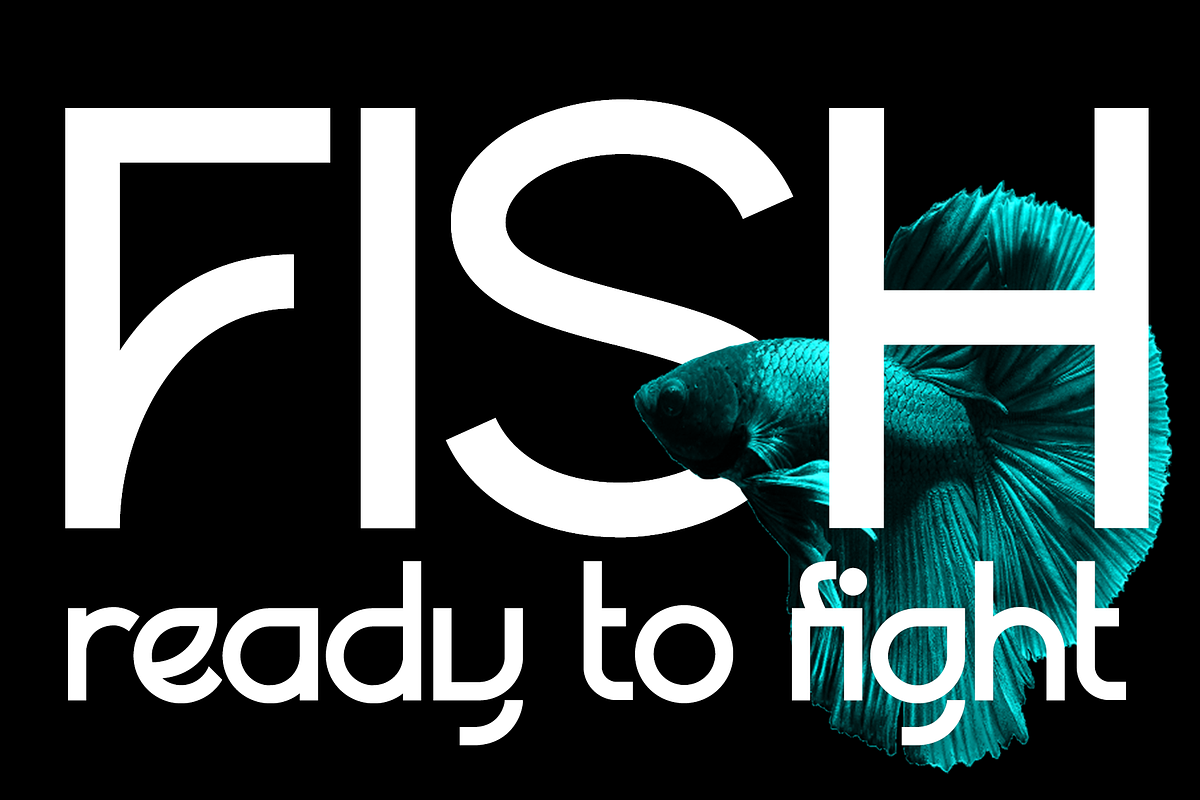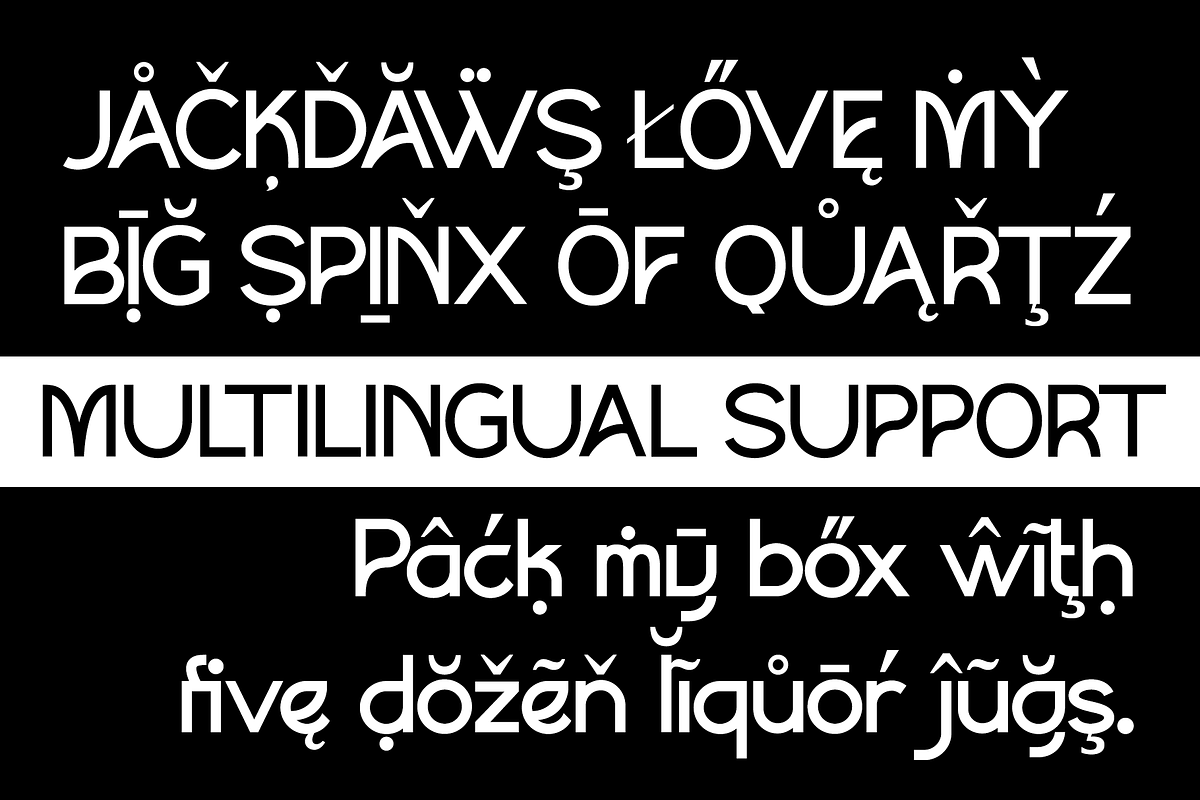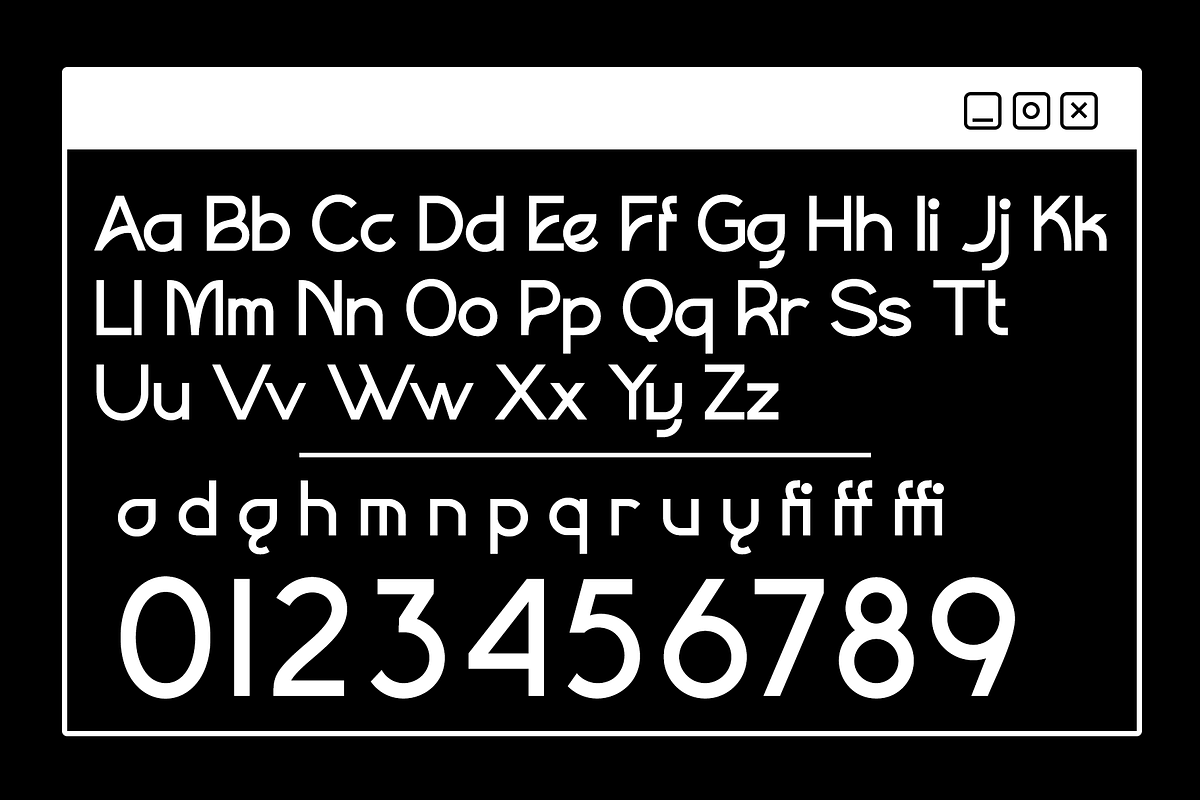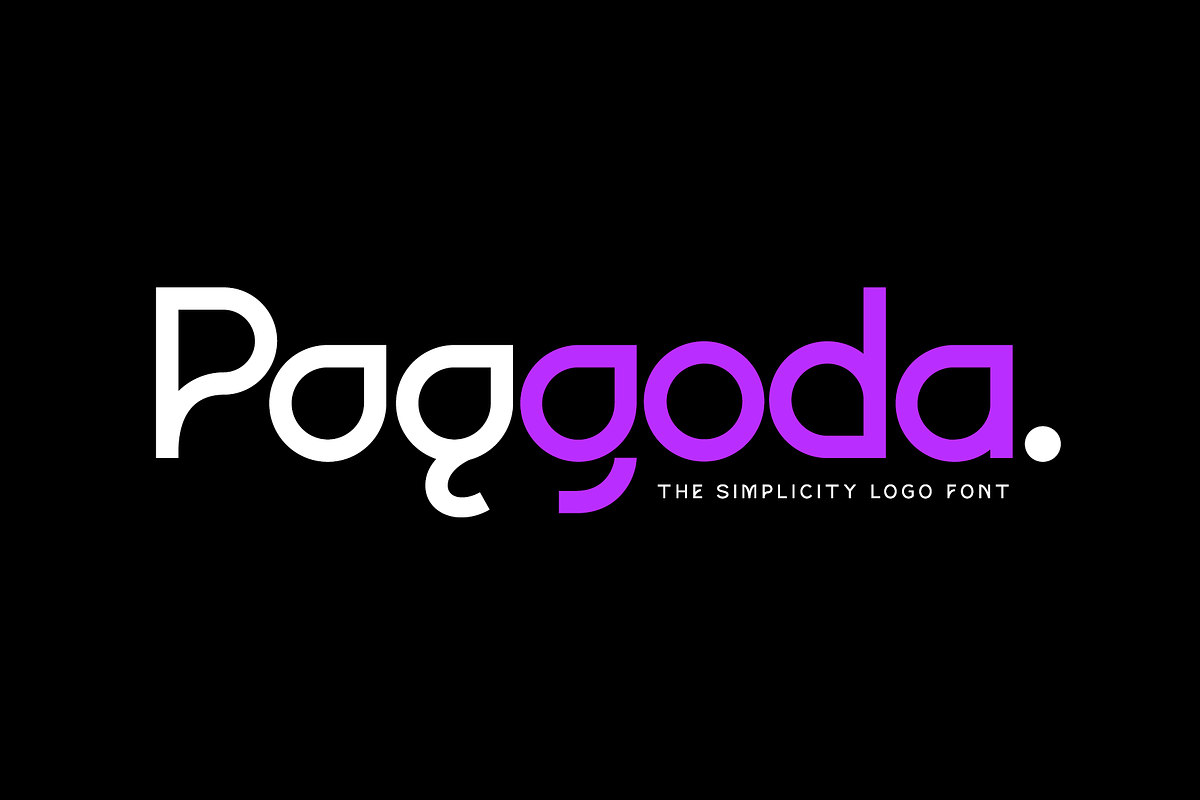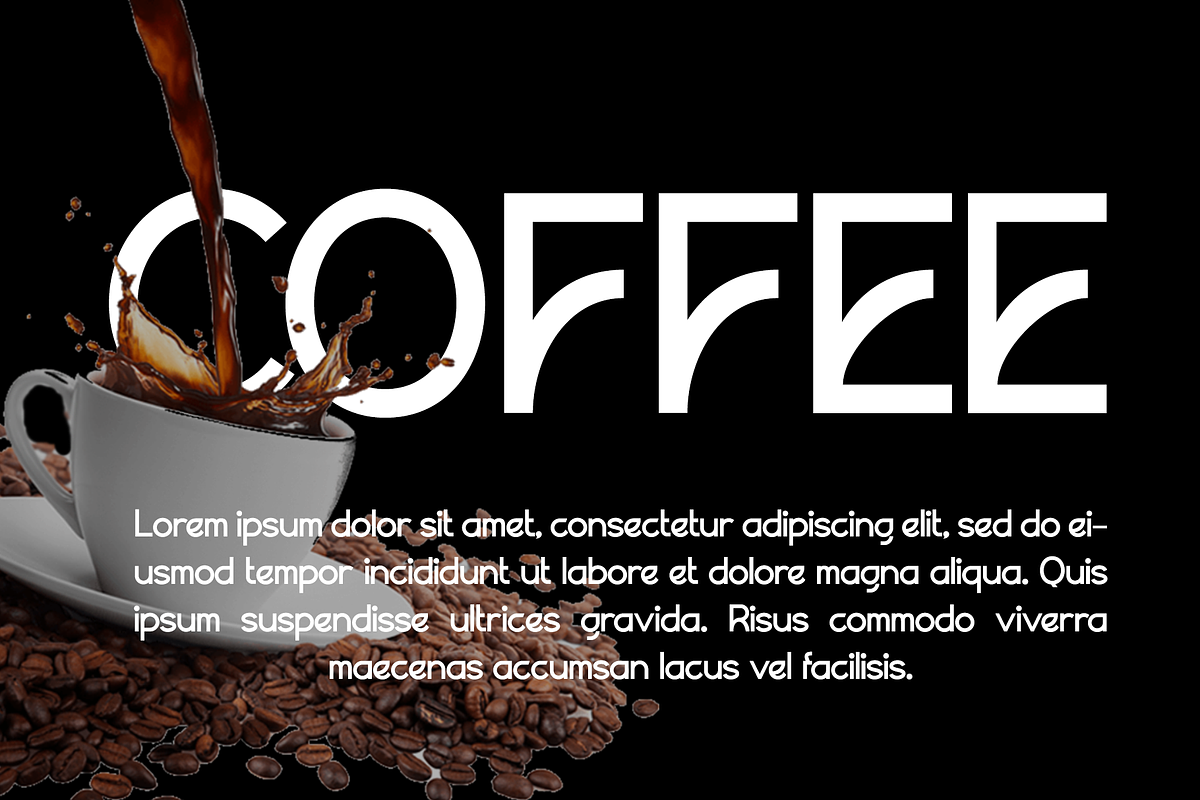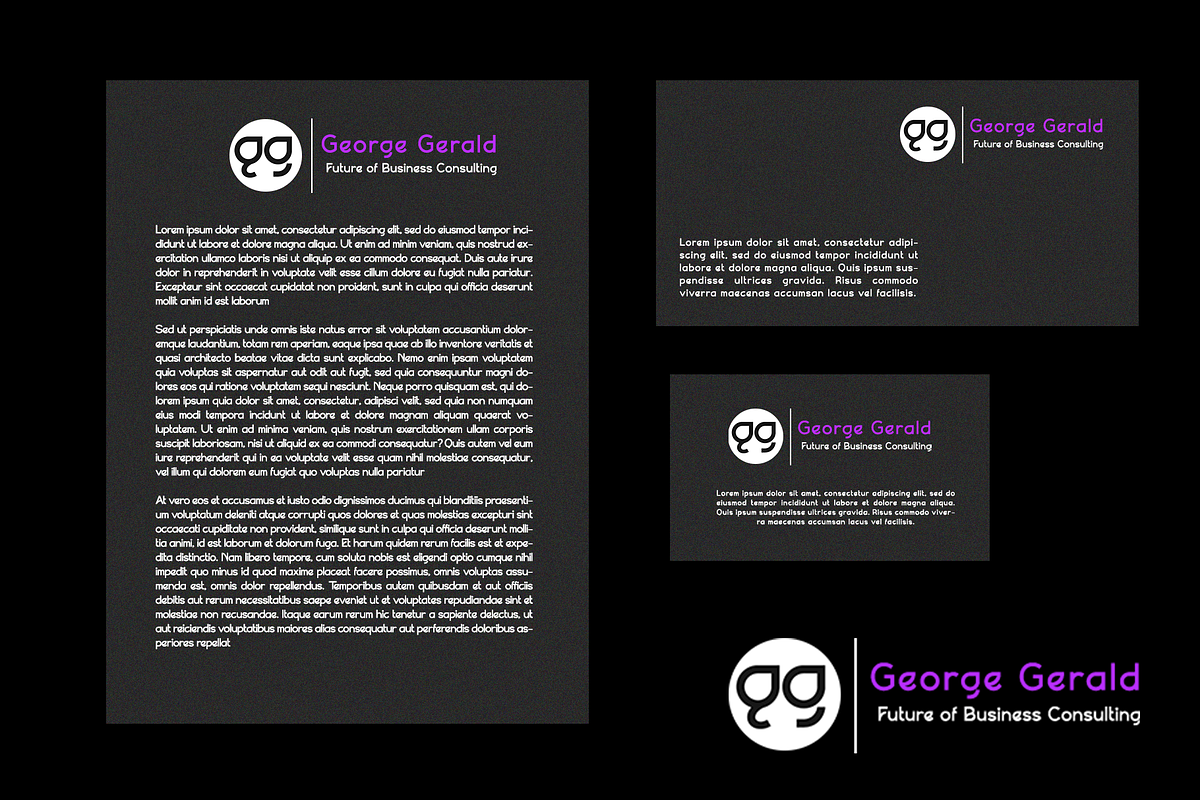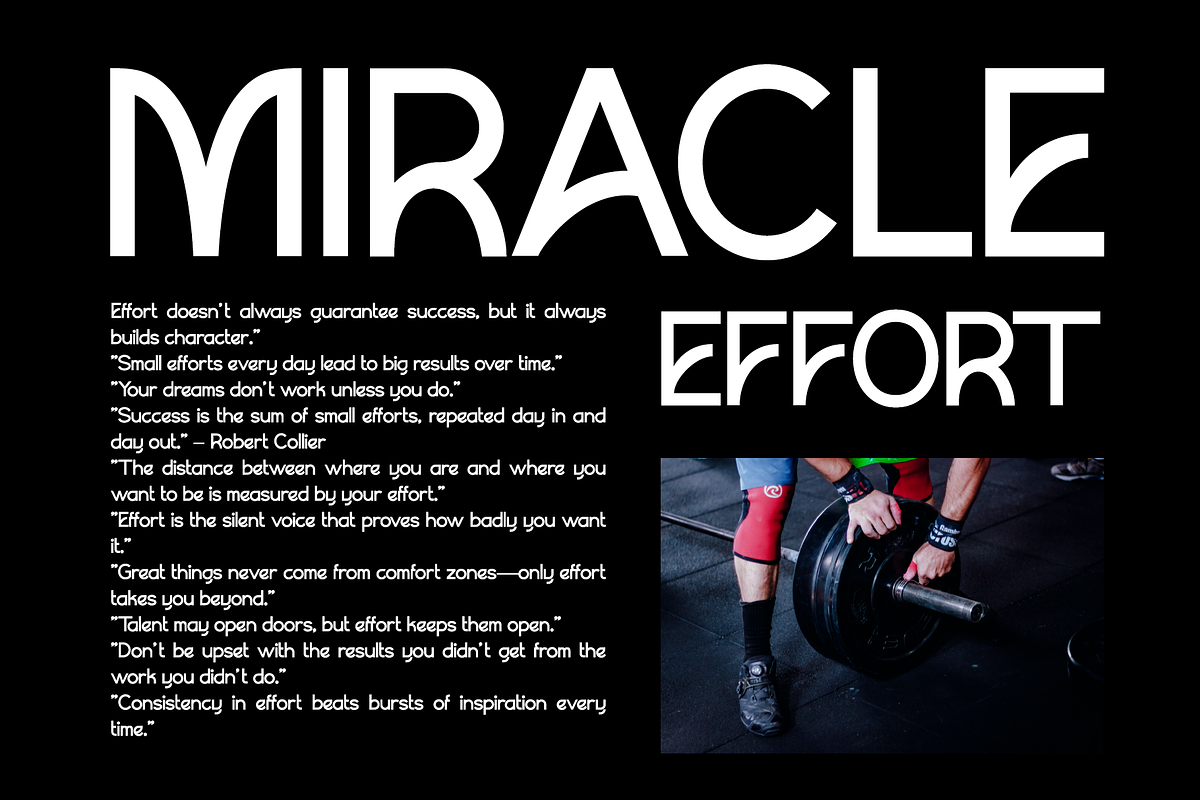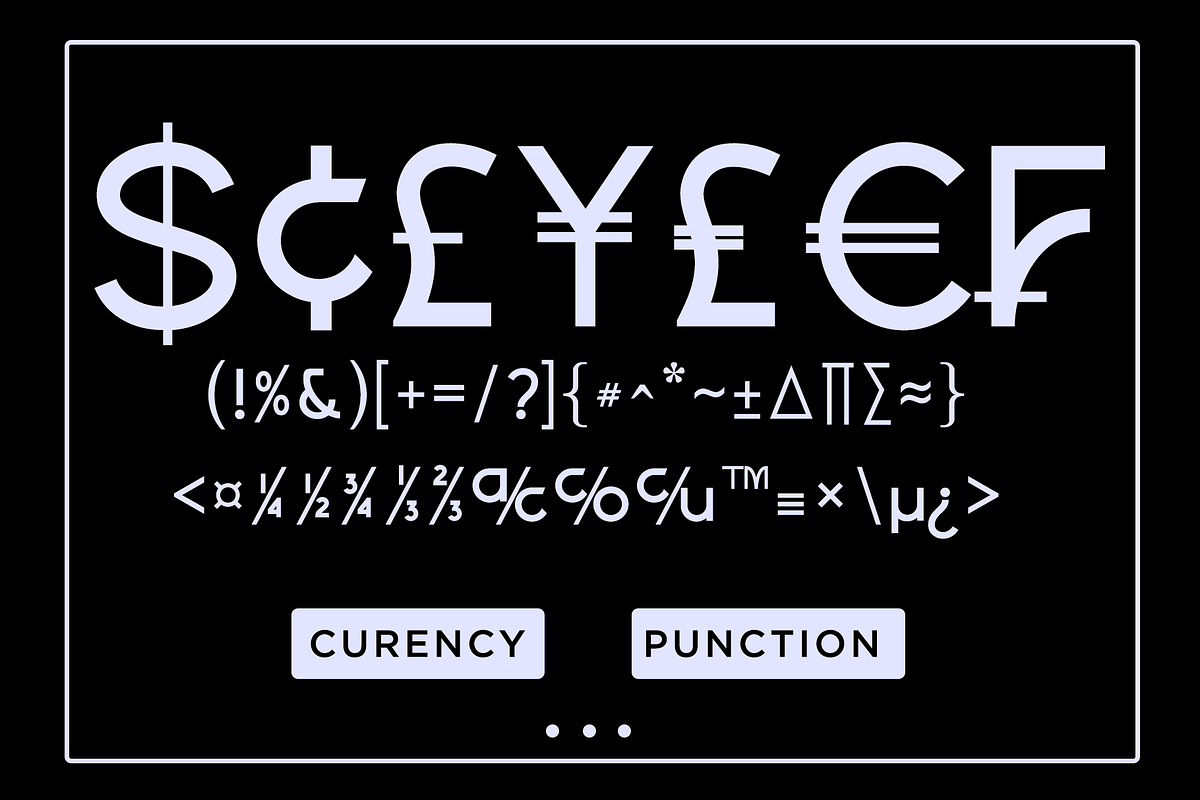
Paggoda
Introducing Paggoda, a clean and minimalistic logo font that perfectly balances simplicity and bold expression. Designed with geometric precision and a futuristic flair, Paggoda is ideal for brand identities, tech startups, product packaging, and creative logo designs.
With its unique character shapes and modern construction, Paggoda offers a visually distinctive style that stands out in both digital and print formats.
- Bold Geometric Structure: Built on modern shapes with smooth curves and sharp angles for high visual impact.
- Logo-Ready Design: Specifically crafted to work beautifully in logos, wordmarks, and headline displays.
- Stylish Alternates: Includes creative glyph alternates for flexible branding possibilities.
- High Legibility: Simple letterforms ensure clarity even at small sizes or on digital screens.
- Modern & Minimal: A clean aesthetic that suits contemporary design trends.
Benefits:
- Strong Brand Presence: Creates an instantly recognizable and professional visual identity.
- Versatile Usage: Ideal for logos, website headers, tech products, app designs, posters, and more.
- Easy to Customize: Simple shapes make it adaptable for unique branding tweaks and layout designs.
- Bold & Memorable: Leaves a lasting impression with its modern, confident style.
- Streamlined Workflow: Ready-to-use for designers looking for instant visual impact without excessive adjustments.
Whether you're launching a cutting-edge startup or redesigning a brand with modern sensibilities, Paggoda delivers bold simplicity and creative flexibility for all your design needs.